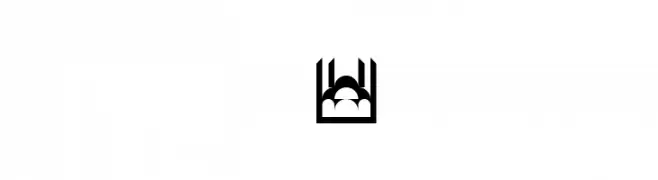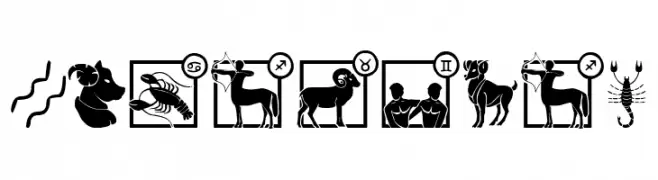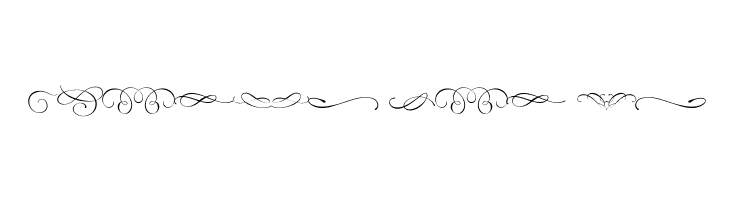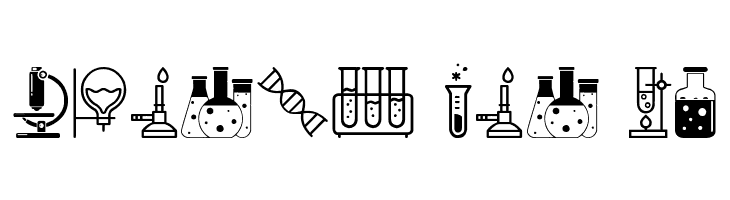
A bold, dynamic script font with a modern, handwritten style.
A collection of decorative swashes and flourishes with intricate loops and curves.
A playful collection of heart-themed doodles with a whimsical, hand-drawn style.
A whimsical collection of hand-drawn decorative arrows with intricate designs.
A whimsical collection of decorative elements featuring hearts, arrows, and banners.
A decorative collection of zodiac-themed symbols representing the twelve astrological signs.
A collection of bold, clear laboratory-themed icons representing scientific tools and symbols.
A decorative collection of Istanbul's iconic landmarks as characters.
A collection of festive and decorative holiday-themed illustrations.
A bold collection of Moroccan-themed icons and Arabic calligraphy.